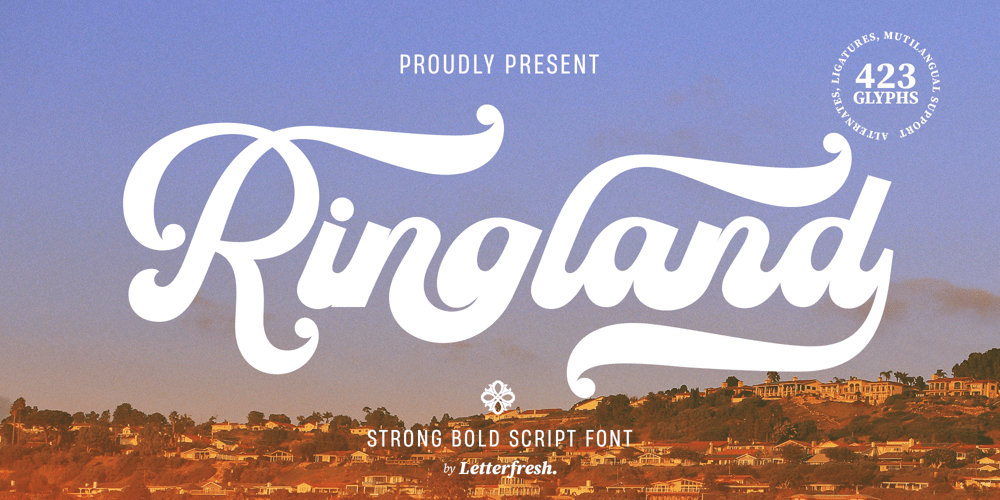
Ringland Script Font Family was designed by Rizki Andika and published by Letterfreshstudio. Ringland Script contains 1 styles and family package options. Ringland is a sophisticated and timeless script font, perfect for adding a touch of refinement to projects such as brand identities, elegant invitations, product labels, apparel designs, and more.With unique stylistic alternates and ligatures integrated into its OpenType features, this font offers incredible flexibility and creative freedom for any design.Please note: To take full advantage of these OpenType features, you will need design software that supports them, such as Adobe Illustrator, Photoshop, or another application.You can further customize them to suit your font’s specific features!